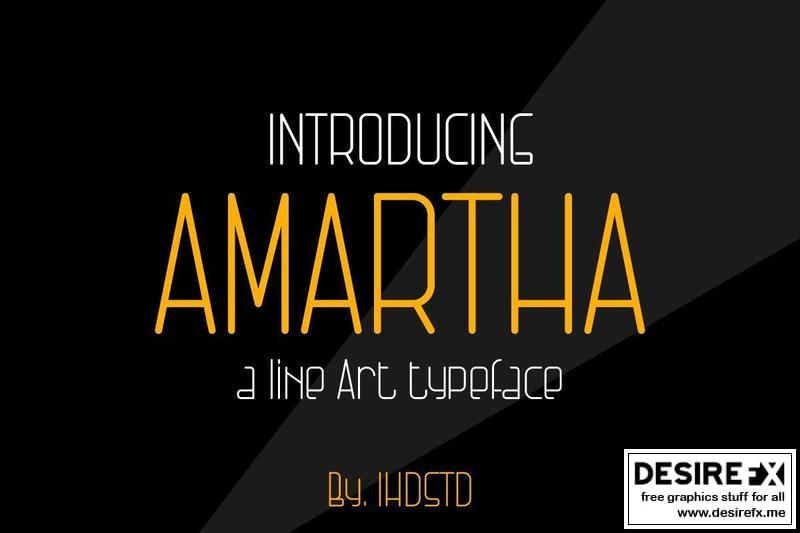
Amartha Line Art Typeface 9NC5VHQ
AMARTHA font is our new item that suitable for your Posters.
Great for Logo, Poster, Sticker, Jersey, Invitation Card, Brochure, etc.